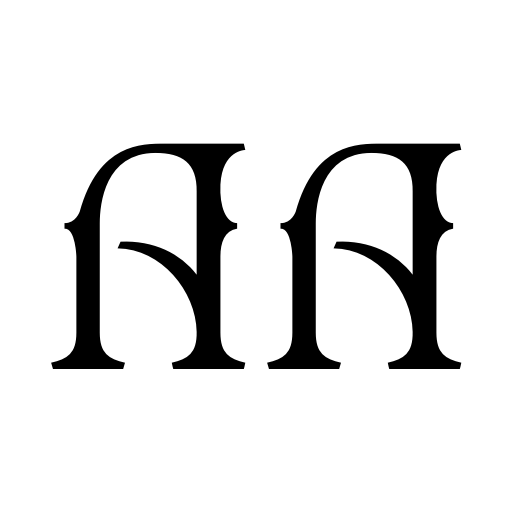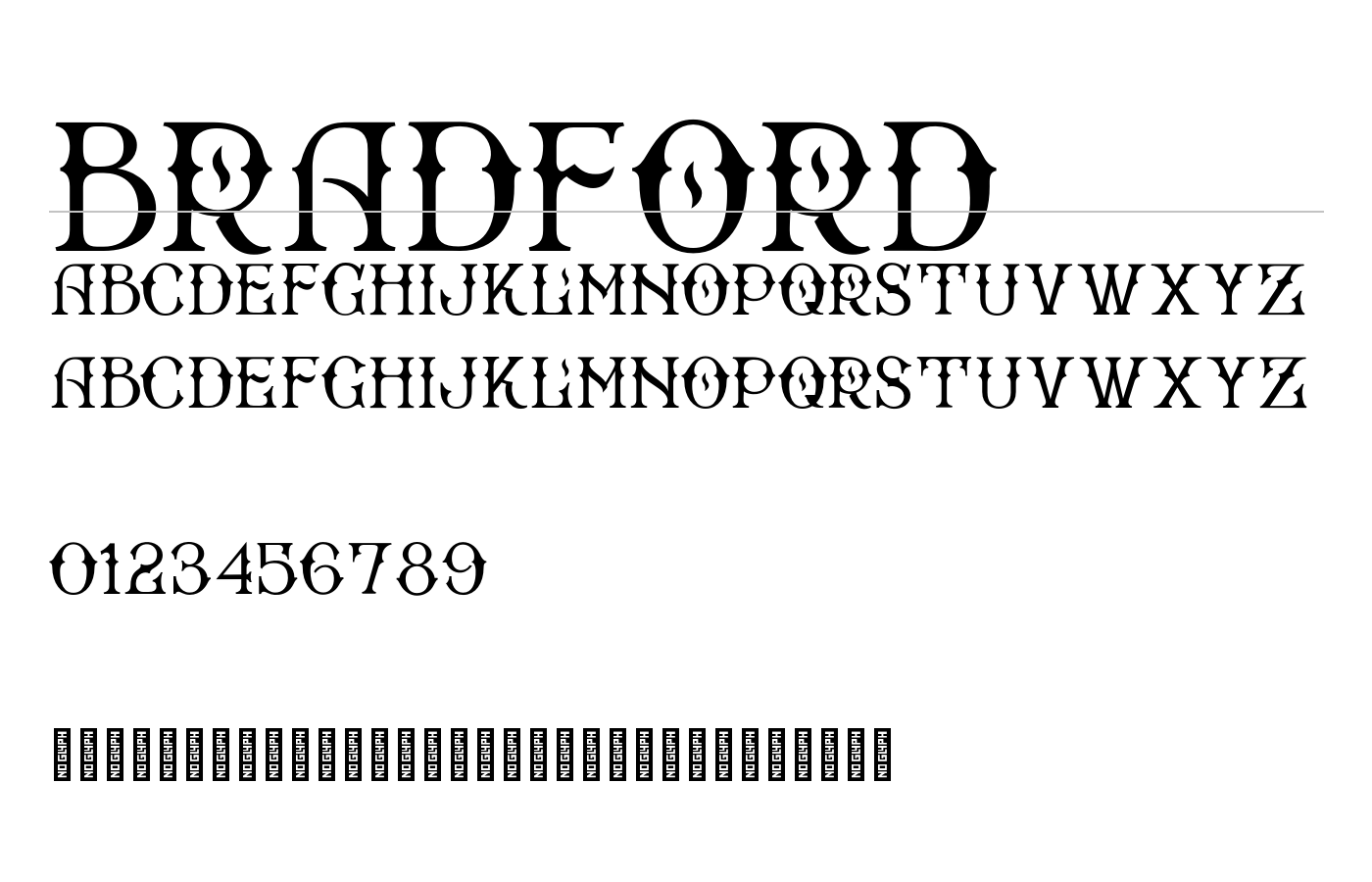
Bradford is a distinctive serif font with a strong vintage vibe, featuring high contrast between thick and thin strokes and sharp, bracketed serifs that create a bold, decorative look. Its unique letterforms, including split curves and stylized terminals, give it an artistic, almost ornamental feel, making it perfect for attention-grabbing headlines, logos, and branding in creative or retro-inspired designs. This font works best where a dramatic and sophisticated presence is needed to evoke a sense of heritage and style.
Bradford Font
About Bradford Font
| Font family | Bradford Font |
| Designer | Sandi Dez |